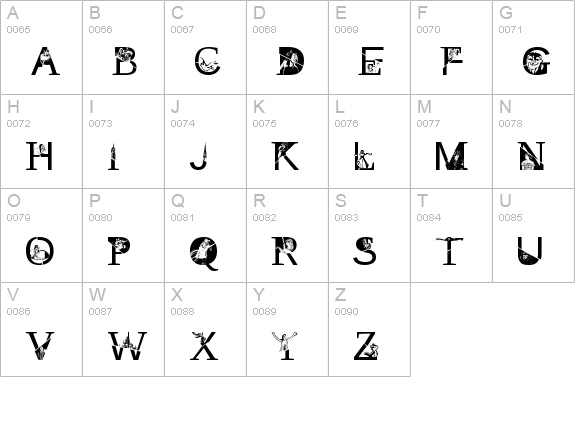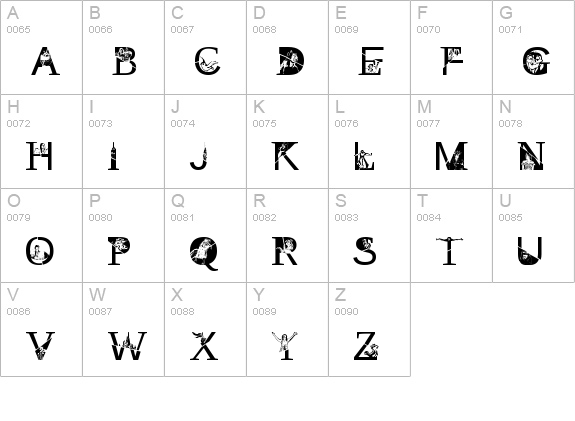
TAK Enchanted Font Details
TAK Enchanted font is a whimsical and charming typeface that will transport you to a magical world of fairy tales and enchantment. With its elegant and flowing design, this font is perfect for adding a touch of fantasy to your designs. Whether you're creating invitations, greeting cards, or branding materials, TAK Enchanted font will bring a sense of wonder and charm to your projects. The best part? TAK Enchanted font is completely free to download at FontsMarket.com. Now you can easily access this enchanting font and add a touch of magic to all your creative endeavors. Don't miss out on the opportunity to bring a little bit of fairy tale charm into your designs with TAK Enchanted font. Download it today and let your creativity soar!